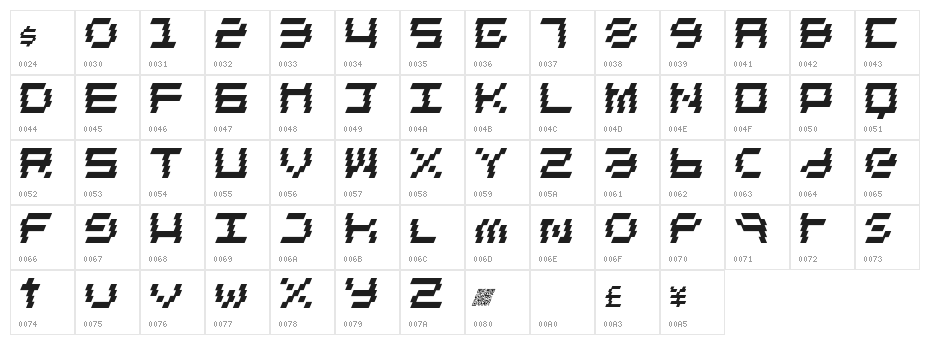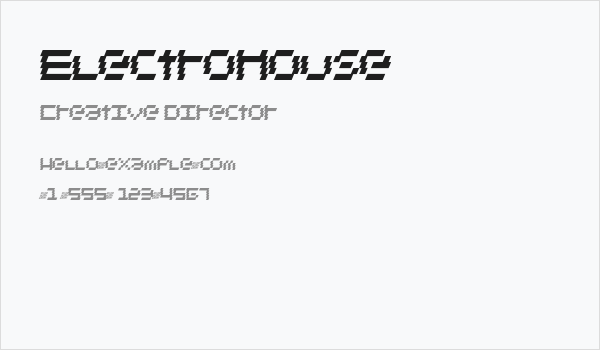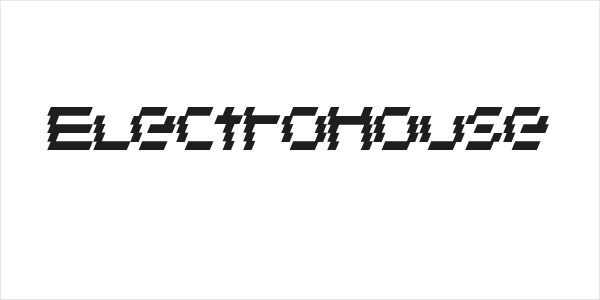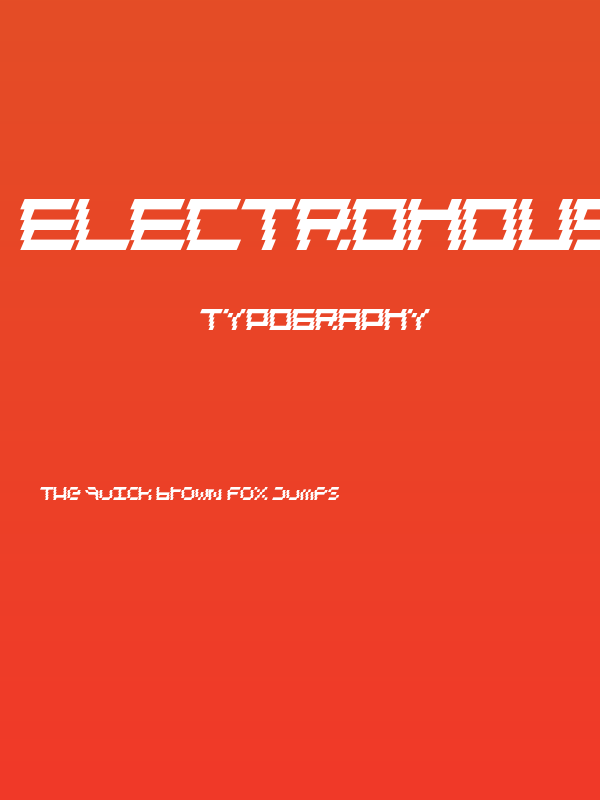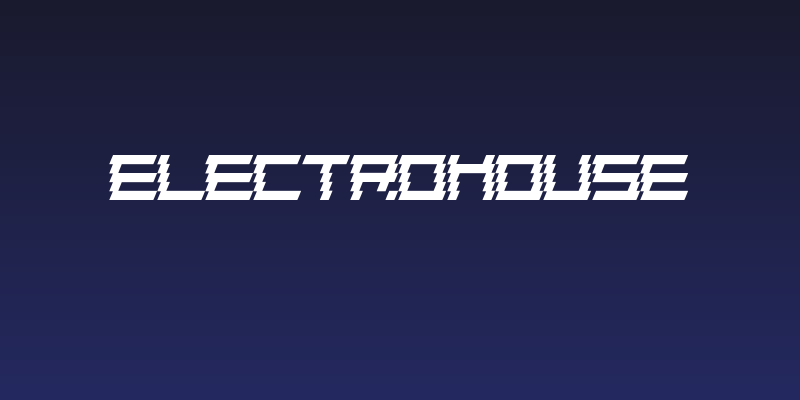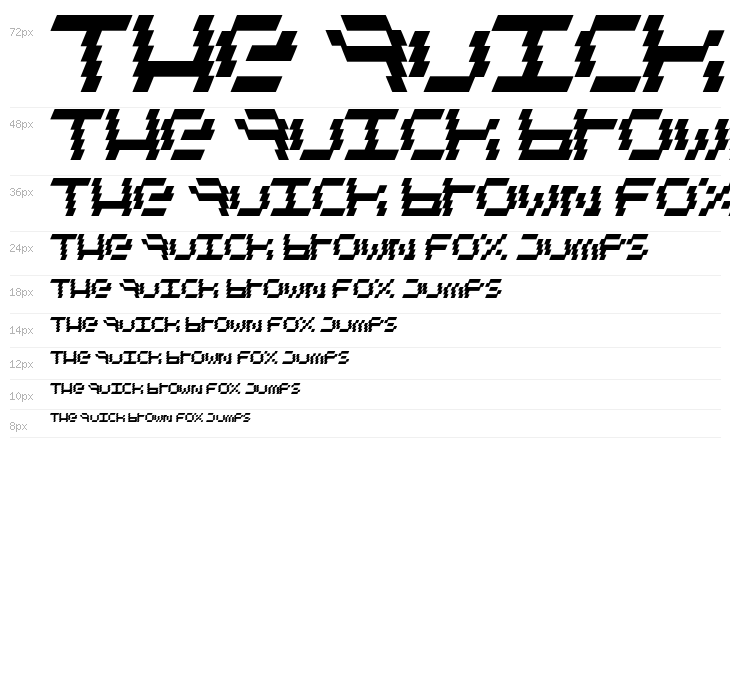
ElectroHouse Font
ElectroHouse Description
This font exhibits a bold, futuristic style with a distinct digital aesthetic. The characters are composed of sharp, angular lines that create a sense of movement and energy, reminiscent of electronic music and digital interfaces. The uppercase and lowercase letters maintain a consistent geometric structure, while the numbers and special characters integrate seamlessly into the overall design. The font's unique appearance makes it ideal for projects that require a modern, tech-inspired look.
| Proposed Projects | Ideal for electronic music album covers, tech event posters, video game titles, and digital media branding. |